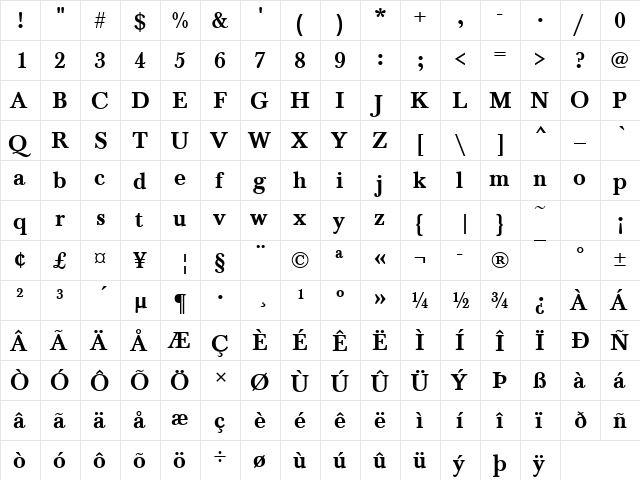
BaskervilleTMed Regular
Design Context for BaskervilleTMed Typeface
BaskervilleTMed offers clean, dependable letterforms without strong stylistic allegiance, making it a practical choice for designers who need flexibility.